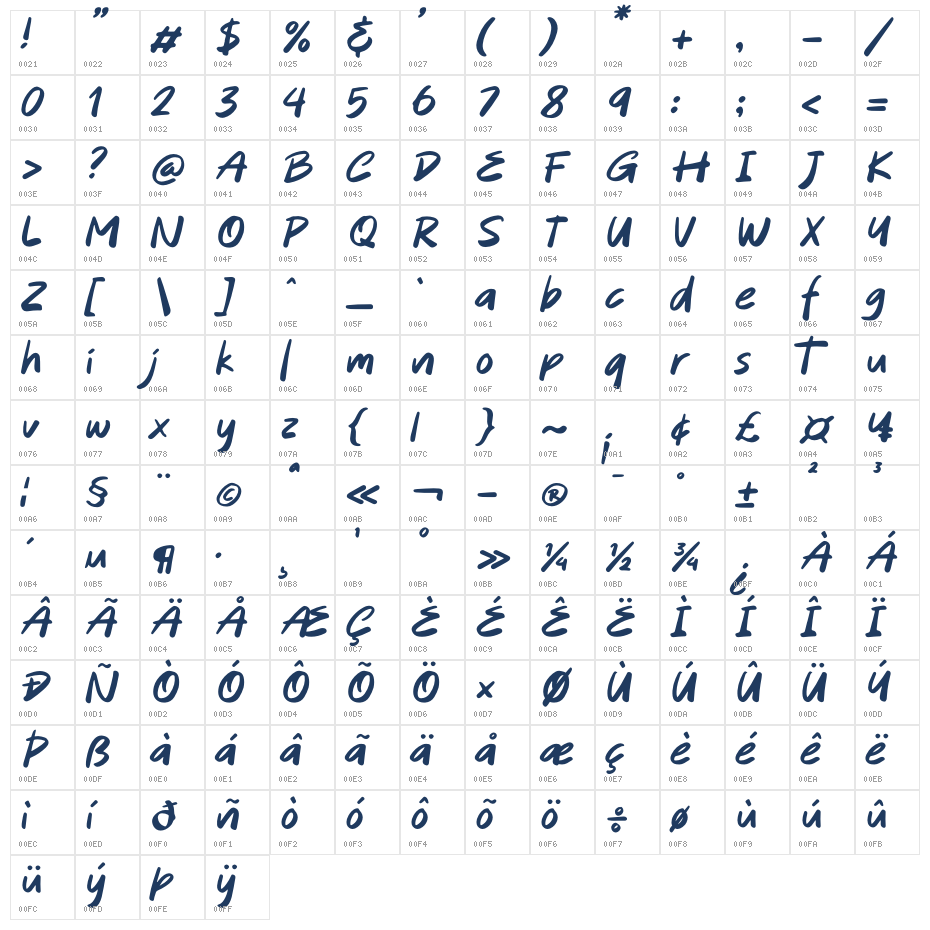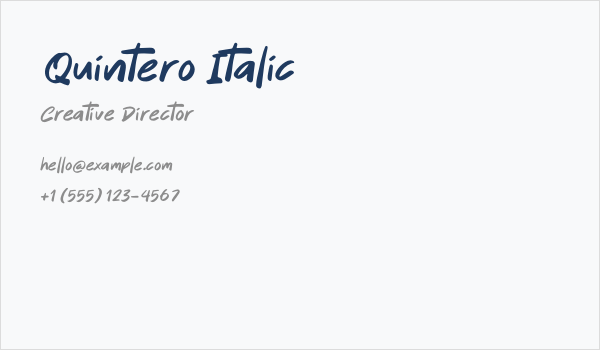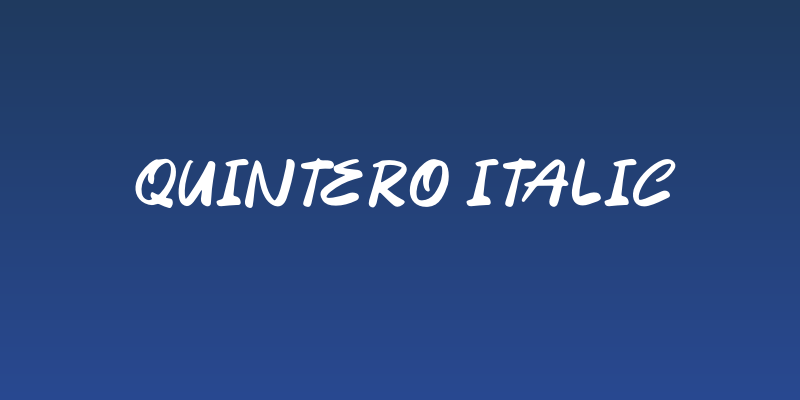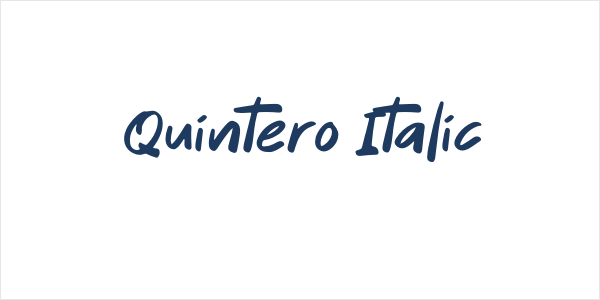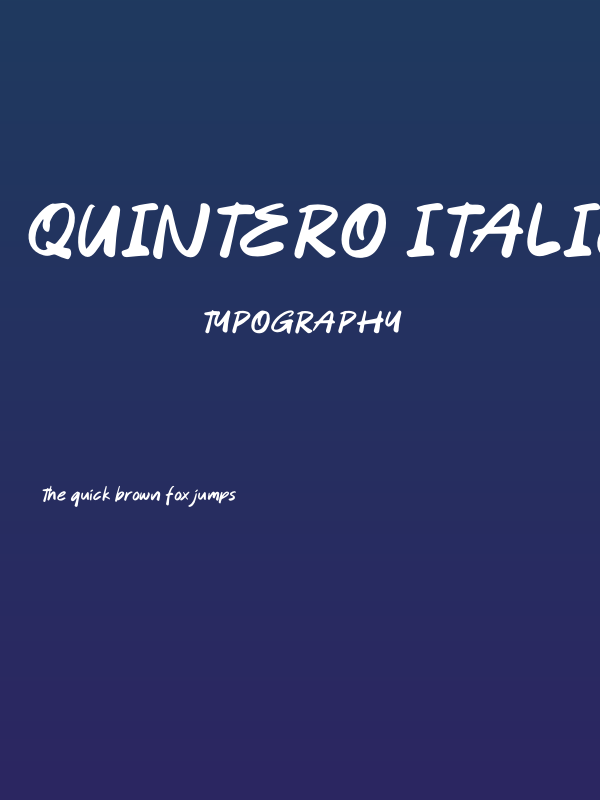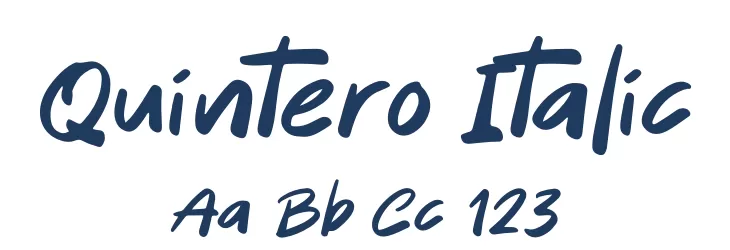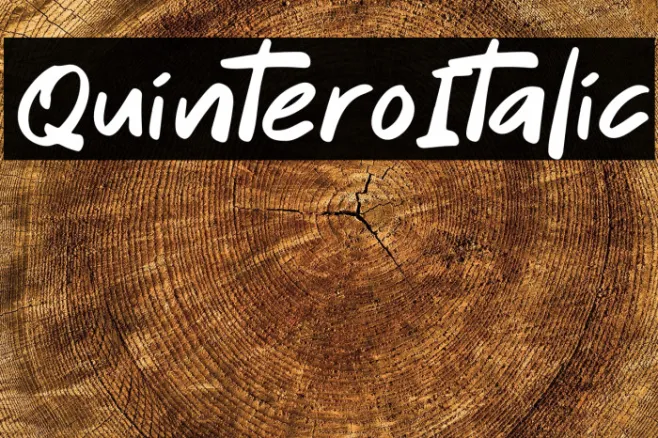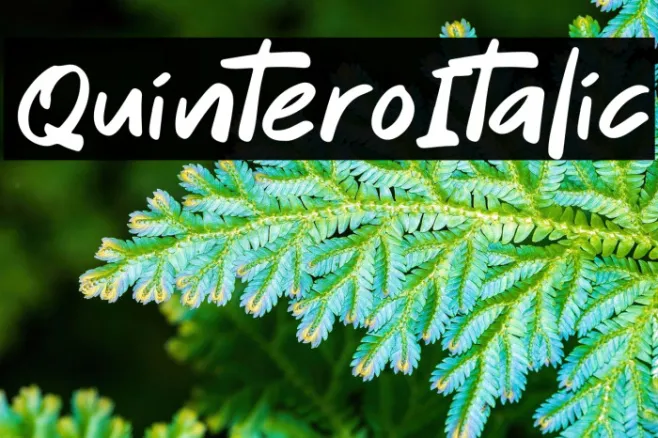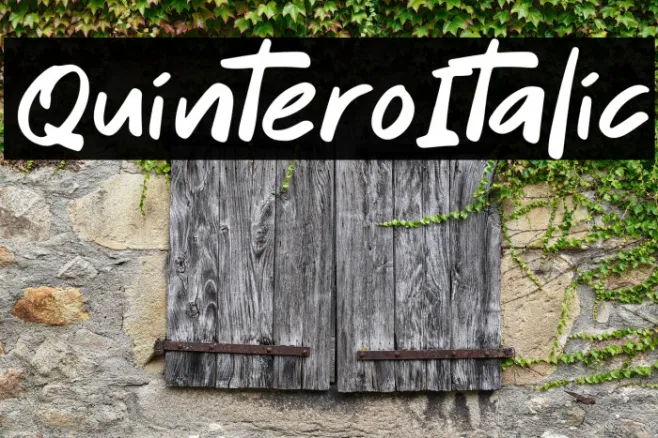
Quintero Italic Font
Quintero Italic Description
A casual, handwritten script font with a smooth, flowing style.
| Overall Style | Casual, Handwritten |
| Use Case | Headlines, Personal projects, Invitations, Creative designs |